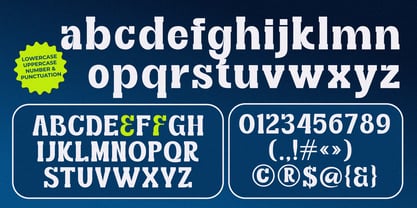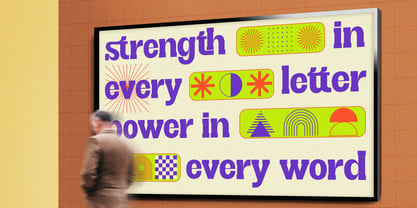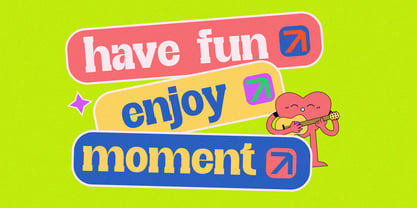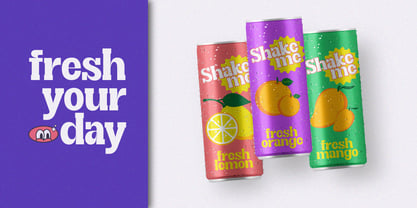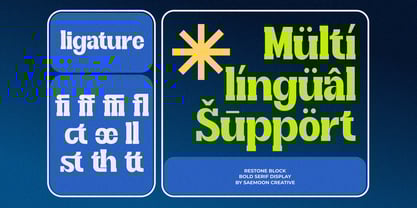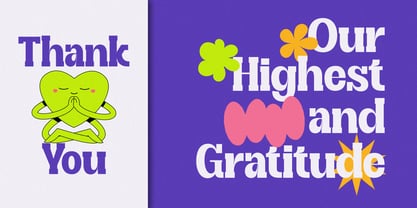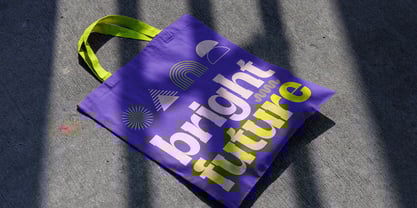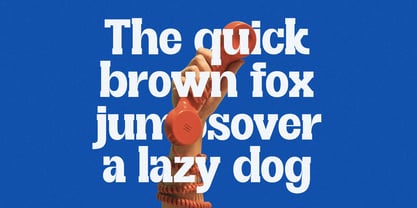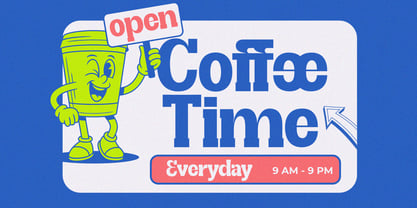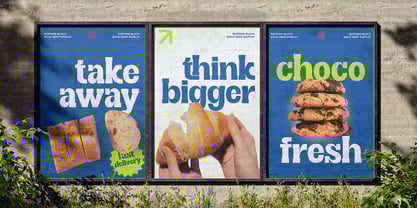
Restone Block
by Saemoon Creative
The Restone Block Font Family was designed by Sapto Susilo and published by Saemoon Creative. Restone Block contains 2 styles and family package options.
Restone Block: Bold and Modern Display Serif Typeface Restone Block is a bold and stylish display serif typeface designed to command attention and deliver a message with maximum impact. Featuring an extra-heavy weight and high contrast, this font successfully merges a classic serif aesthetic with a fresh, modern edge. Key Features: High Visual Impact: The solid, thick letterforms create unmistakable headlines and titles that demand to be noticed. Contemporary Style: Perfect for modern branding, posters, editorial design, product packaging, and any project requiring a strong, confident character. Versatile Readability: Despite its prominent nature, the clean construction maintains excellent legibility. Complete Glyph Set: Offers 381 glyphs to support various languages and design needs. Make Restone Block your go-to choice for projects that require bravery, authority, and a unique stylistic touch. Elevate your brand to the next level with this energetic and powerful font!
Designers: Sapto Susilo
Publisher: Saemoon Creative
Foundry: Saemoon Creative
Design Owner: Saemoon Creative